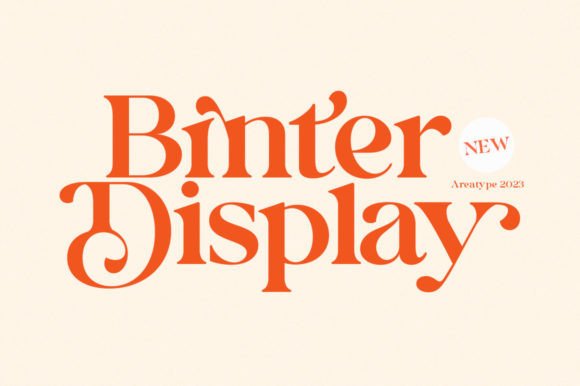
Binter Display Font: Elevate Your Design with Sophistication and Charm
In the world of typography, a well-crafted font can make all the difference in elevating a design project from ordinary to extraordinary. Binter Display Font is one such typeface that exudes sophistication and charm, making it perfect for editorial design, branding, and print materials. In this article, we’ll explore the features and benefits of Binter Display Font and how it can add a touch of beauty to your design projects.
A Classic and Refined Typeface
Binter Display Font is a classic and refined typeface that draws inspiration from traditional typography. Its elegant and timeless appearance is reminiscent of vintage fonts, yet it still manages to feel modern and fresh. The font’s refined letters are carefully crafted to convey a sense of sophistication and luxury, making it ideal for high-end branding, editorial design, and print materials.
Perfect for Editorial Design and Branding
Binter Display Font is particularly well-suited for editorial design and branding projects. Its classic and refined appearance makes it perfect for use in magazines, newspapers, and books, while its elegant and sophisticated feel makes it ideal for luxury brands and high-end companies. Whether you’re designing a logo, brochure, or advertisement, Binter Display Font is sure to make a lasting impression.
Timeless Appearance
One of the standout features of Binter Display Font is its timeless appearance. Unlike some fonts that may feel dated or trendy, Binter Display Font has a classic and enduring quality that will never go out of style. This makes it a great investment for designers and businesses looking for a font that will stand the test of time.
PUA Encoded for Easy Access
Binter Display Font is PUA (Private Use Area) encoded, which means that you can access all the delightful glyphs and swashes effortlessly. This makes it easy to add decorative touches to your design projects, such as flourishes, ligatures, and other special characters. With Binter Display Font, you can easily create beautiful and intricate designs without having to spend hours searching for the right glyphs and symbols.
Key Features of Binter Display Font
- Classic and refined typeface: Binter Display Font is a beautifully crafted typeface that draws inspiration from traditional typography.
- Sophisticated and charming: The font’s elegant and timeless appearance makes it perfect for high-end branding, editorial design, and print materials.
- PUA encoded: Binter Display Font is PUA encoded, making it easy to access all the delightful glyphs and swashes.
- Timeless appearance: The font’s classic and enduring quality ensures that it will never go out of style.
How to Use Binter Display Font
Binter Display Font can be used in a variety of design projects, including:
- Editorial design: Use Binter Display Font to add a touch of sophistication to your magazine, newspaper, or book designs.
- Branding: Create a luxurious and high-end brand identity with Binter Display Font.
- Print materials: Use Binter Display Font to create beautiful and eye-catching print materials, such as brochures, advertisements, and posters.
Tips for Pairing Binter Display Font with Other Fonts
When pairing Binter Display Font with other fonts, it’s essential to choose fonts that complement its classic and refined appearance. Here are some tips:
- Pair with serif fonts: Binter Display Font pairs well with serif fonts, such as Garamond or Georgia.
- Pair with sans-serif fonts: For a more modern look, pair Binter Display Font with sans-serif fonts, such as Helvetica or Arial.
- Use contrasting fonts: Create visual interest by pairing Binter Display Font with contrasting fonts, such as a bold and modern font.
Binter Display Font is a beautiful and sophisticated typeface that can elevate any design project. Its classic and refined appearance, combined with its PUA encoding and timeless quality, make it perfect for editorial design, branding, and print materials. With Binter Display Font, you can add a touch of beauty and sophistication to your designs, making them truly stand out.